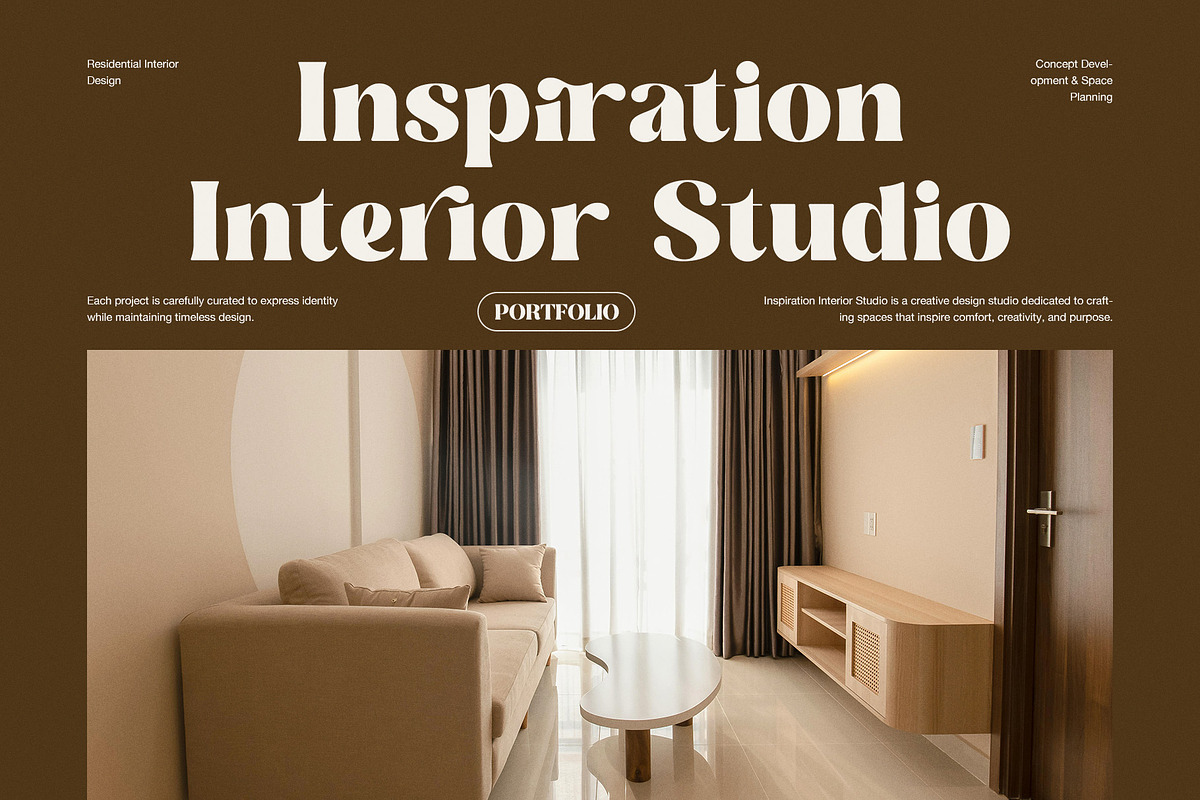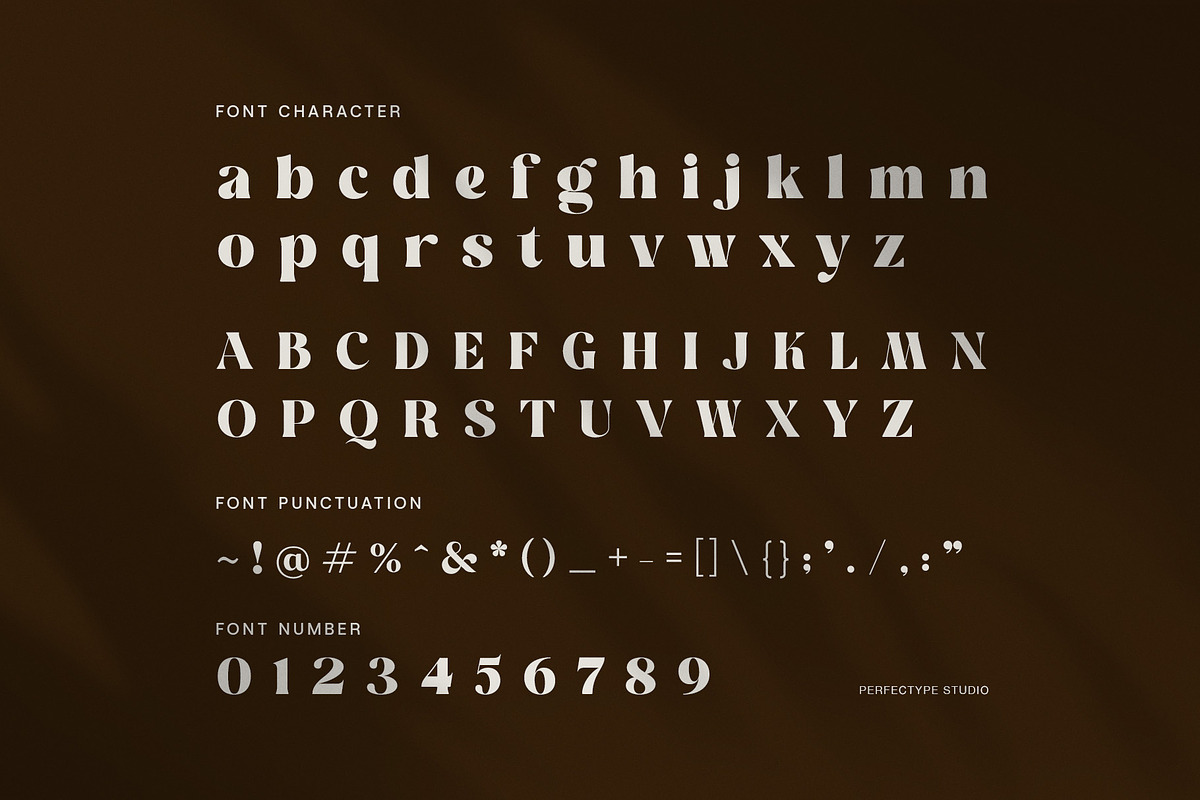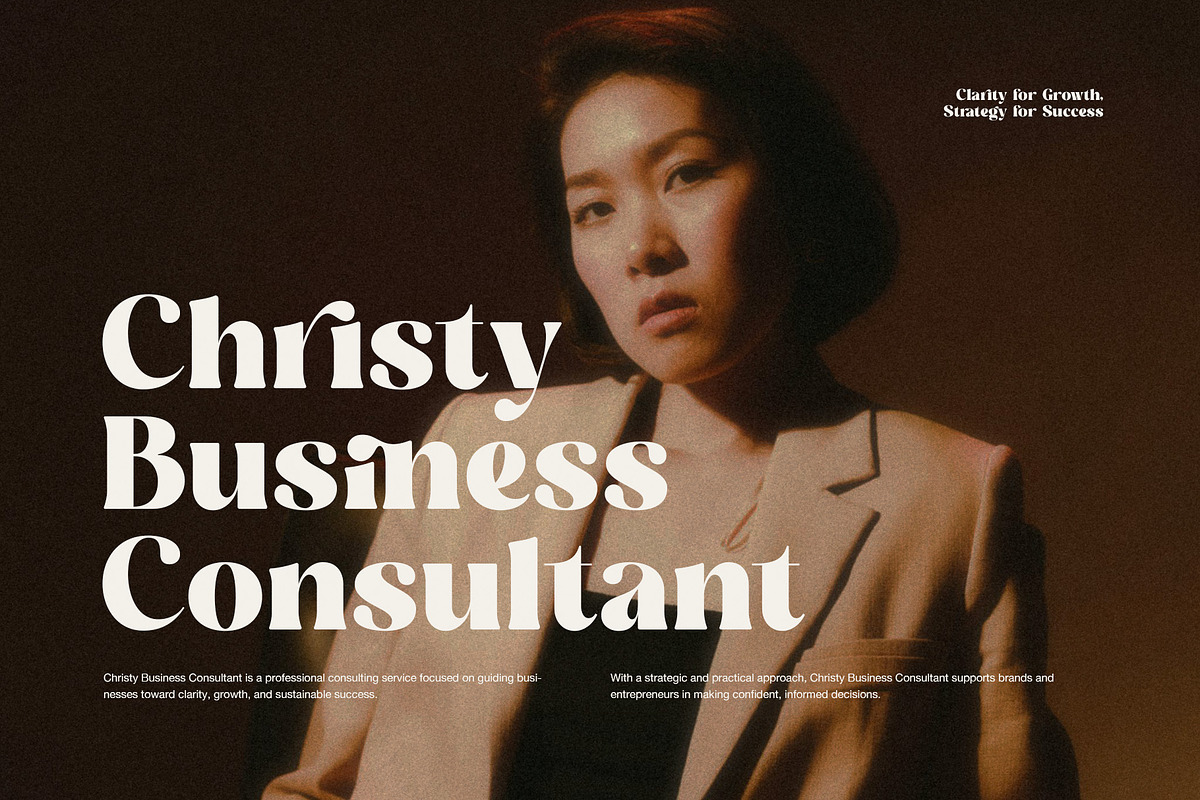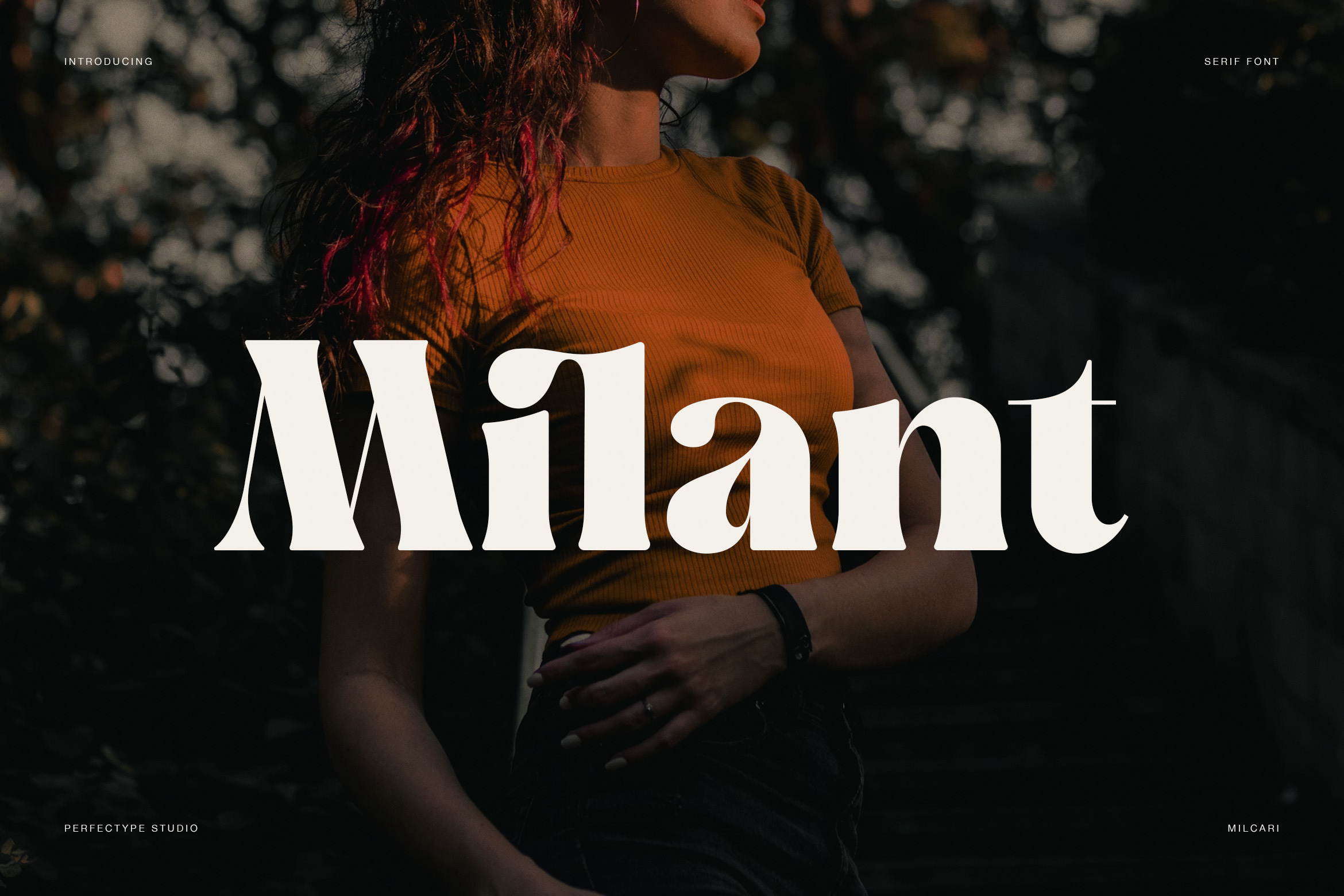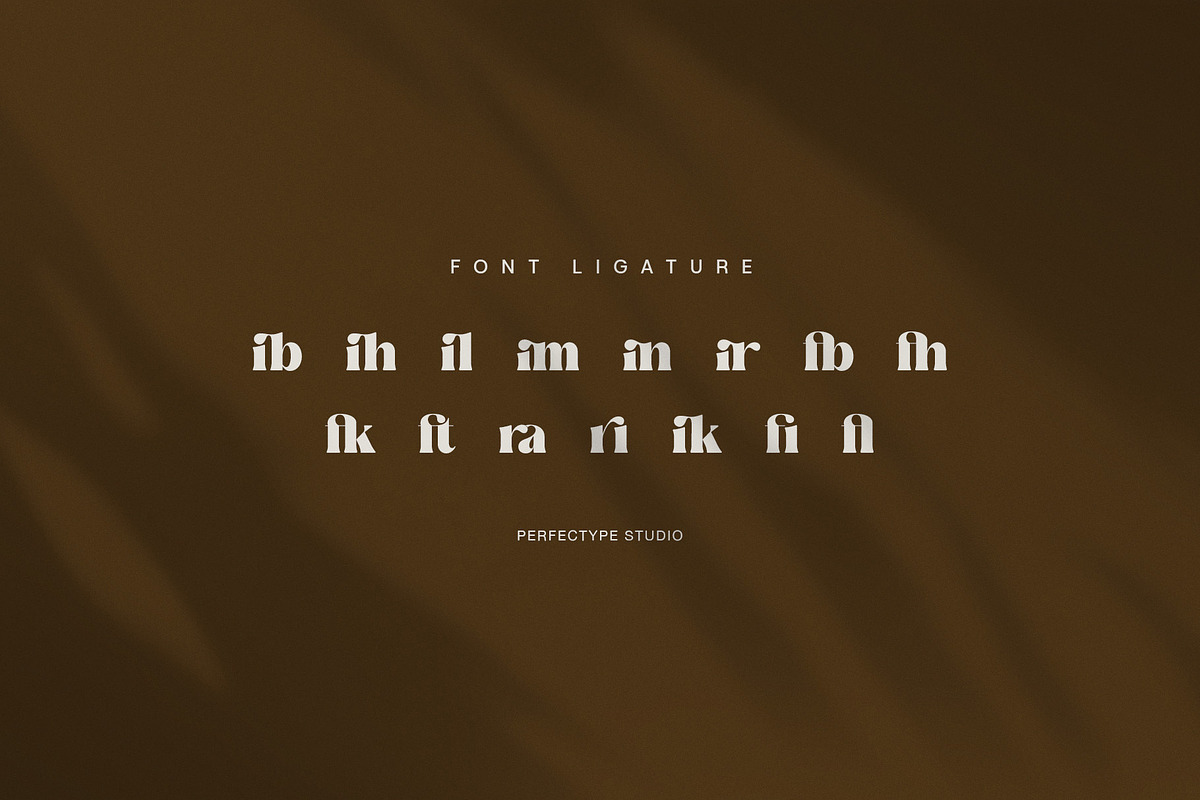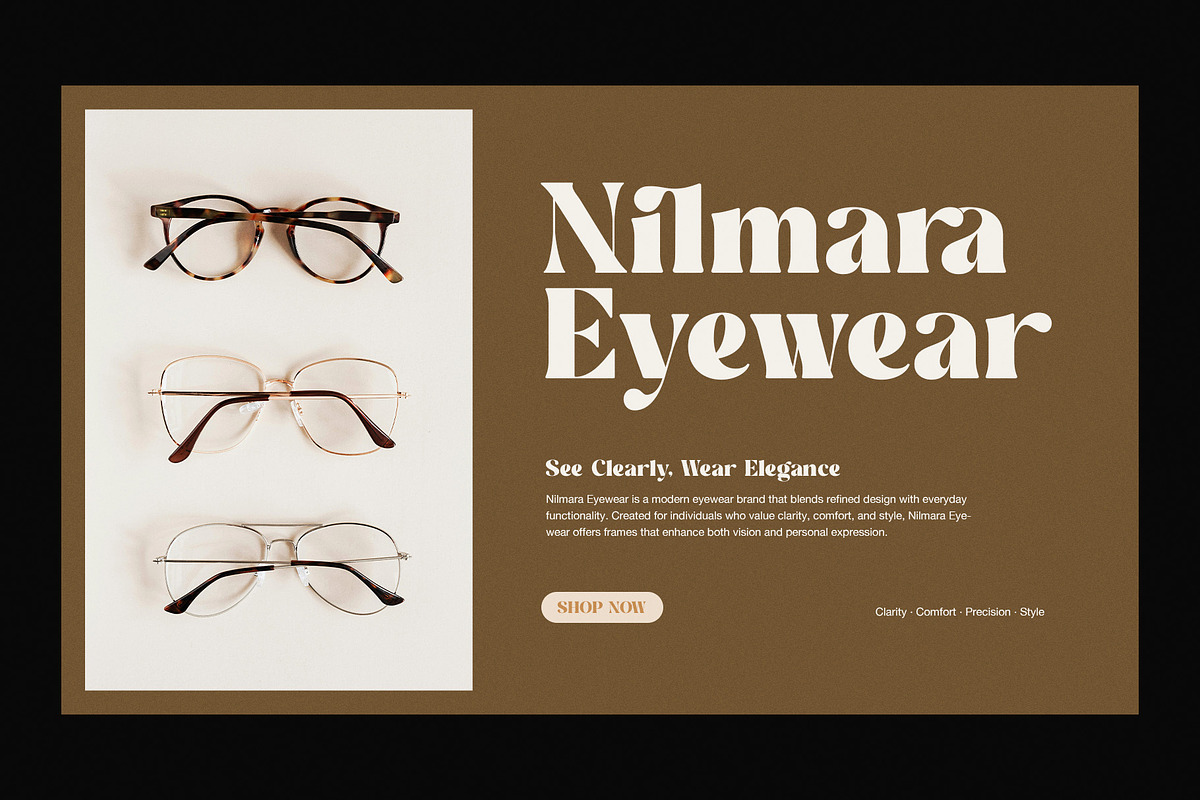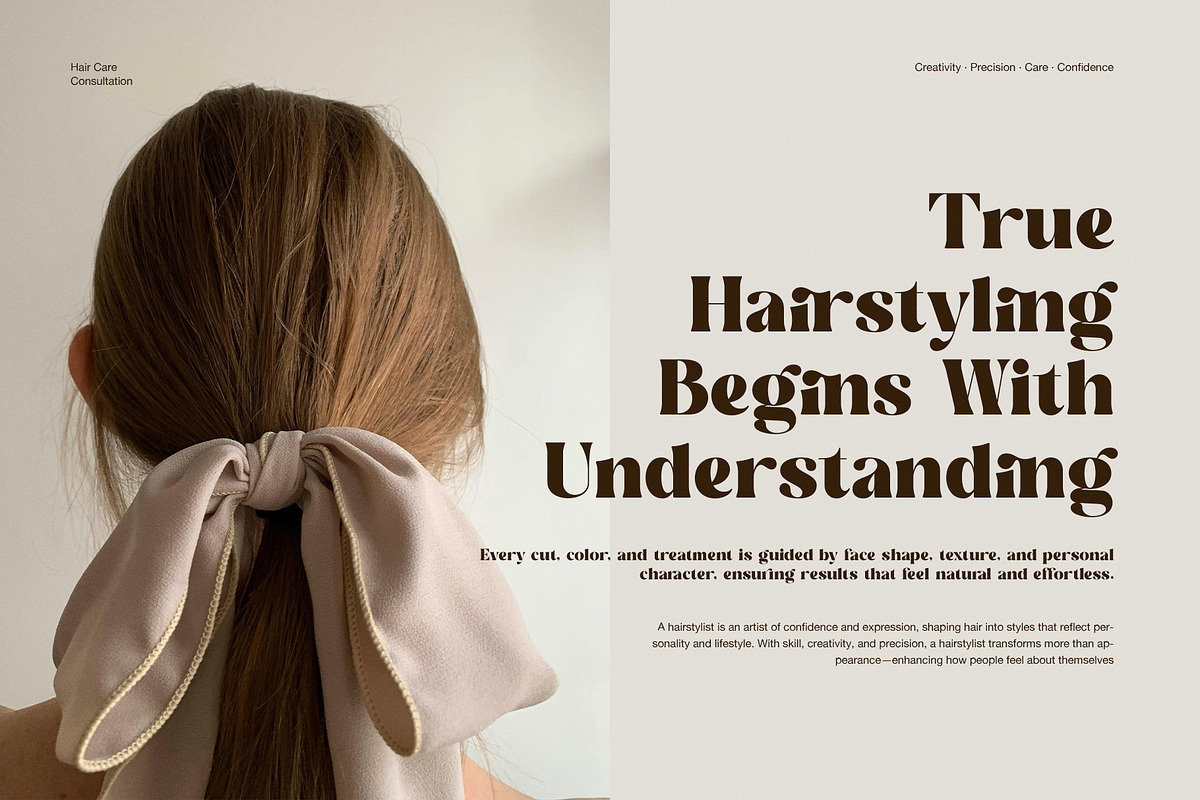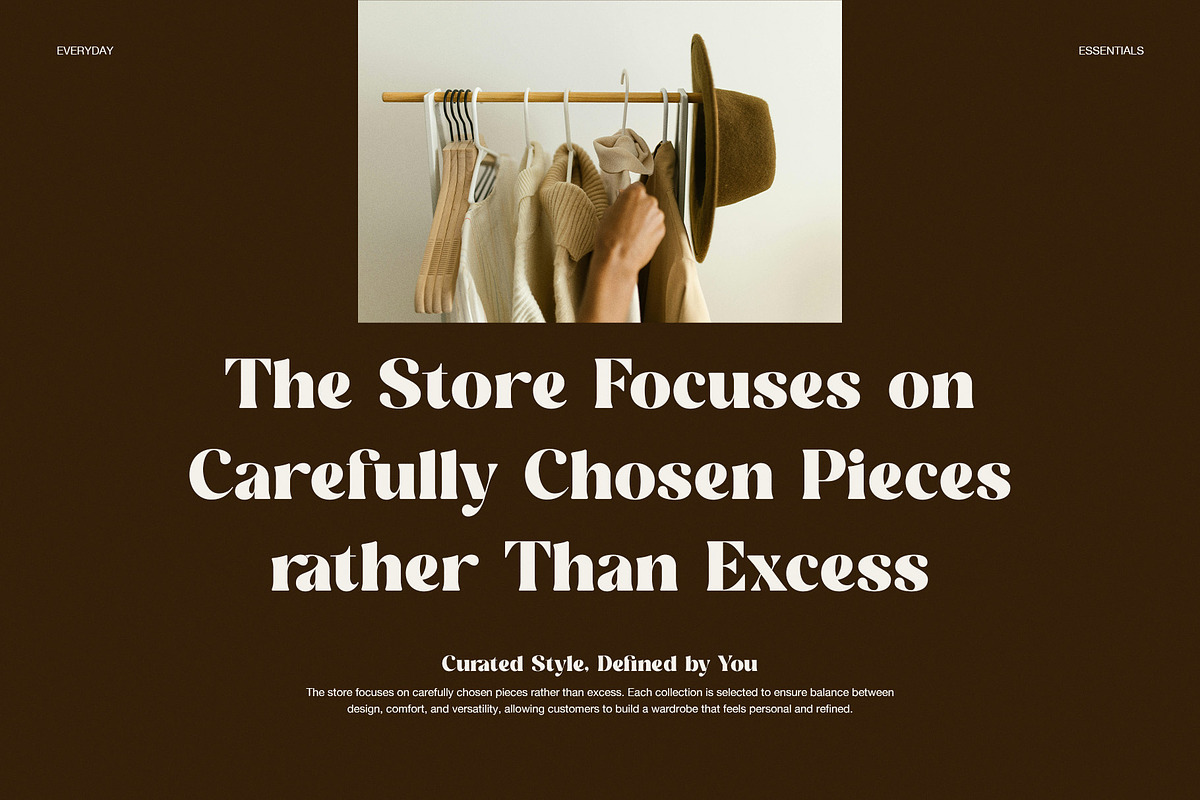
Milant Elegant Modern Serif Font
Milant is an elegant modern serif font created to express confidence, warmth, and refined simplicity. From the first impression, this font feels stylish and composed. Therefore, it is a strong choice for designers who want typography that feels expressive yet controlled.
Milant combines classic serif foundations with smooth curves and balanced contrast. As a result, each letterform appears soft but structured. The shapes feel natural, while the subtle details add personality without distraction. Moreover, the overall design remains clean, which helps the font feel timeless and versatile.
Because Milant is clear and readable, it performs well in both large headlines and supporting text. In addition, the spacing is carefully adjusted to maintain clarity across print and digital layouts. This balance allows designers to use the font confidently in professional projects.
Milant includes refined ligatures that improve word flow and visual harmony. These ligatures create smooth connections between letters, especially in titles and branding layouts. Furthermore, the font maintains consistency across uppercase, lowercase, numbers, and punctuation, which supports polished typography.
Another advantage of Milant is its adaptability. While it feels elegant and modern, it also remains practical. Therefore, it works well for fashion brands, eyewear labels, beauty studios, lifestyle products, interior design, and creative consultants. At the same time, it fits posters, editorial layouts, and social media visuals.
Milant pairs easily with clean sans-serif fonts. Consequently, designers can build strong hierarchy without visual clutter. In addition, the font holds its character at larger sizes, which makes it ideal for hero text, logos, and statement headlines.
Key Design Features
Elegant modern serif style
Smooth curves with balanced contrast
Refined ligatures for natural flow
Clear readability for print and screen
Clean and versatile letter structure
Ideal Use Cases
Branding and logo design
Editorial and magazine layouts
Fashion and lifestyle visuals
Beauty, eyewear, and interior brands
Headlines, posters, and marketing graphics
Overall, Milant is a modern serif font that brings clarity, elegance, and confidence to every design.